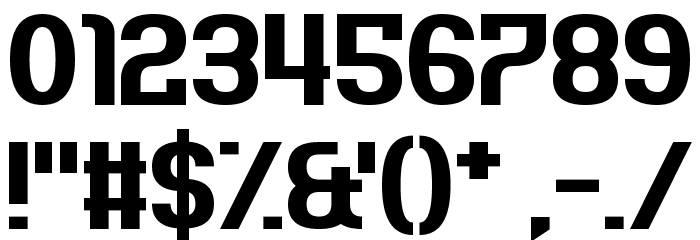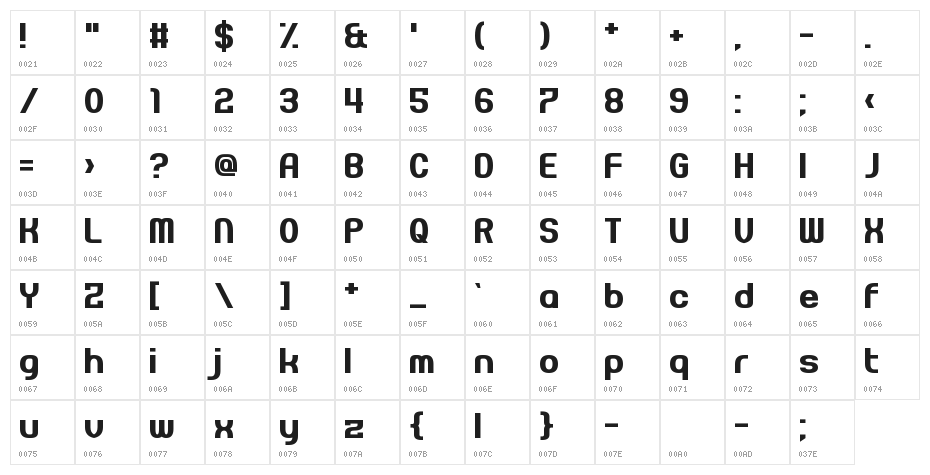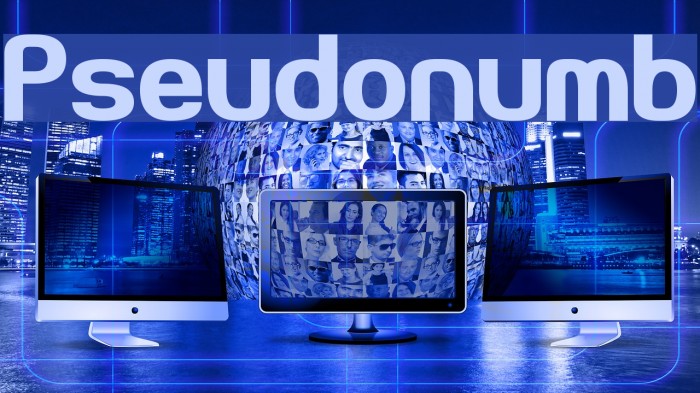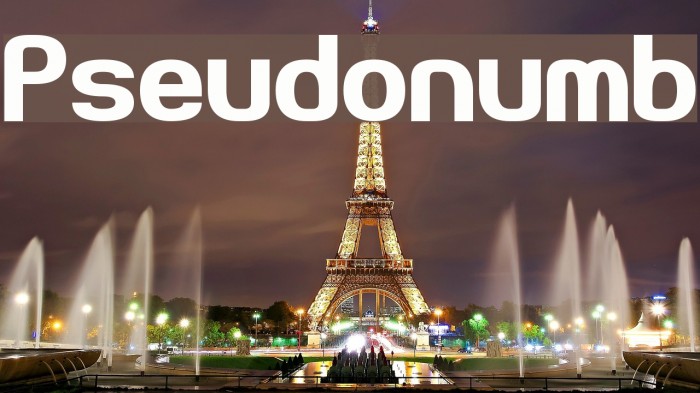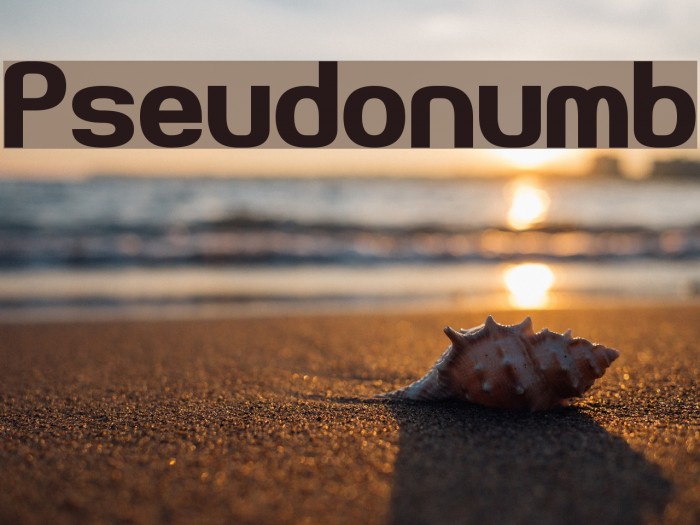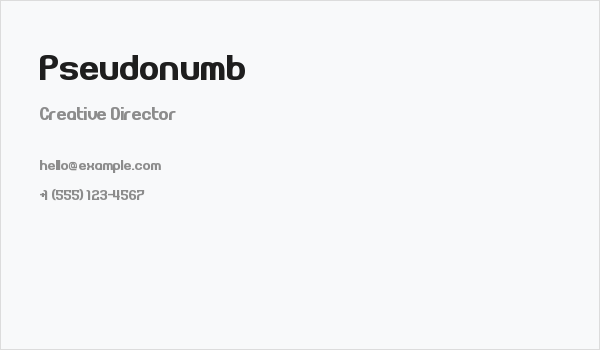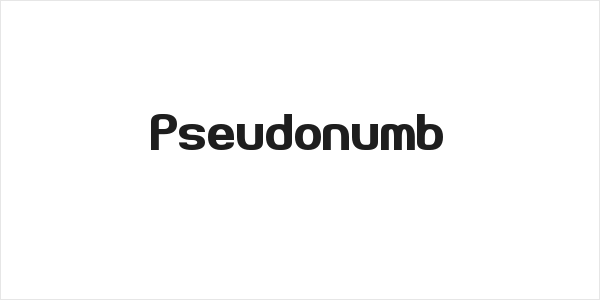
Pseudonumb Font
Pseudonumb Description
This font features a bold and modern design with rounded edges, giving it a friendly and approachable appearance. The characters are uniformly thick, contributing to a strong visual impact. The uppercase and lowercase letters maintain a consistent style, with a slight geometric influence evident in the uniformity of the curves and lines. The numerals are clear and legible, matching the overall boldness of the alphabet. Special characters are well-integrated, maintaining the font's cohesive look. This font is versatile, suitable for various design projects that require a contemporary and bold aesthetic.